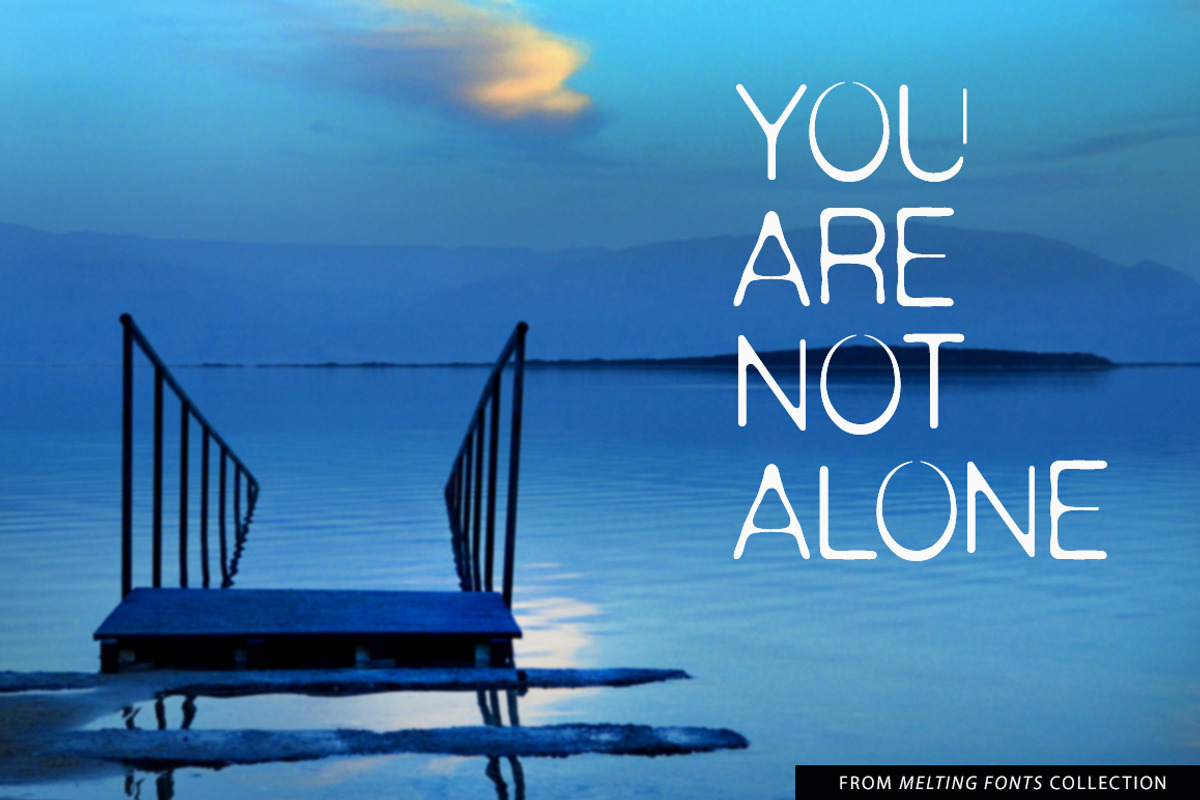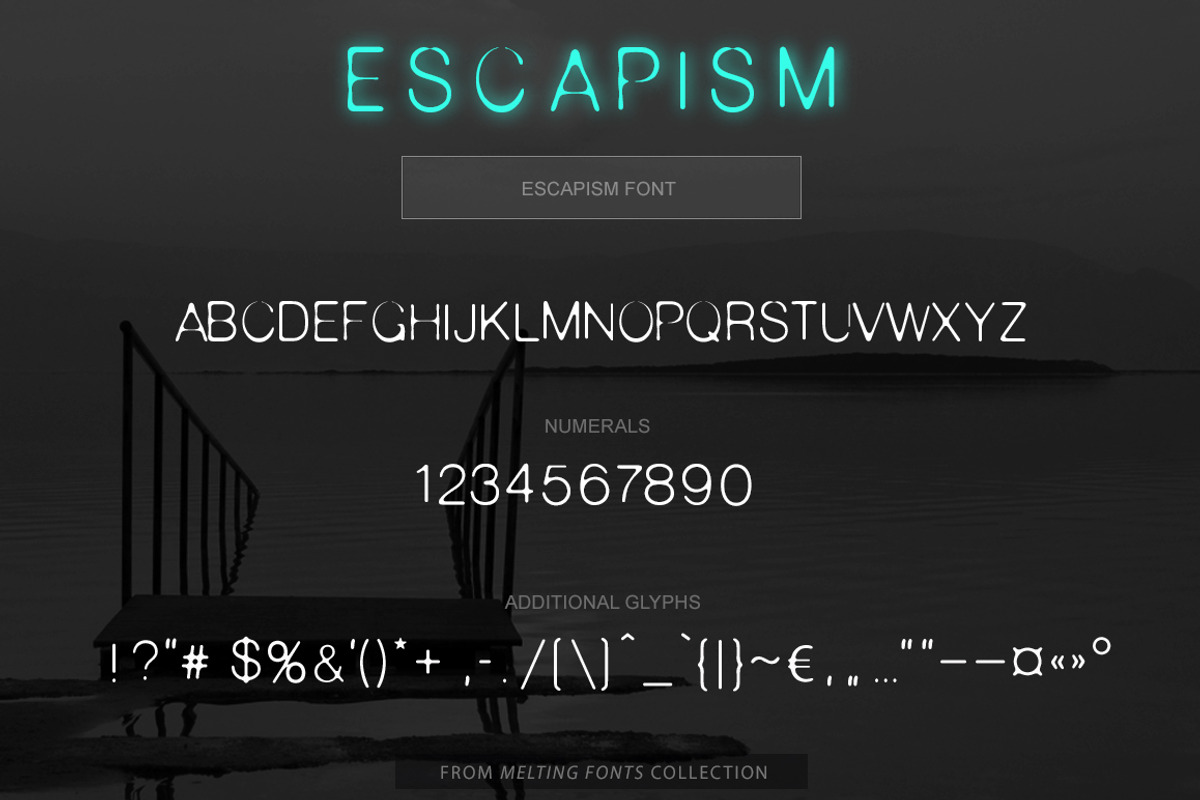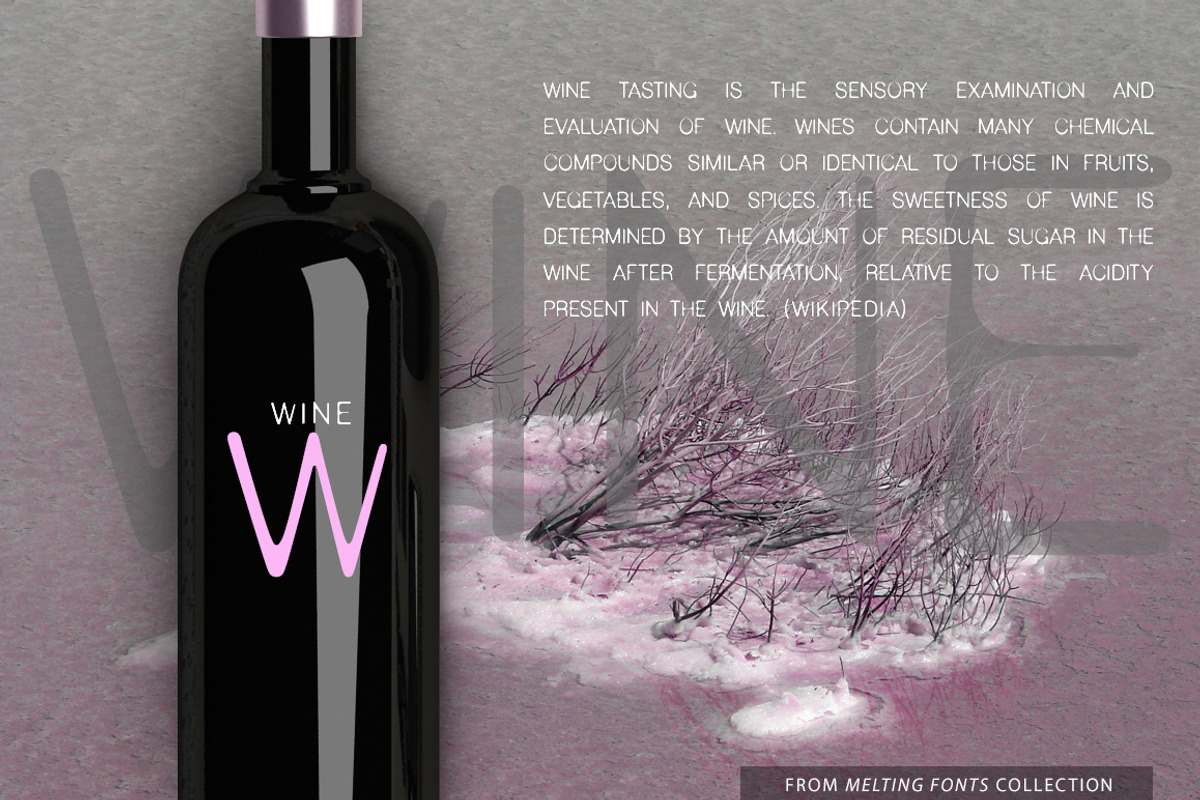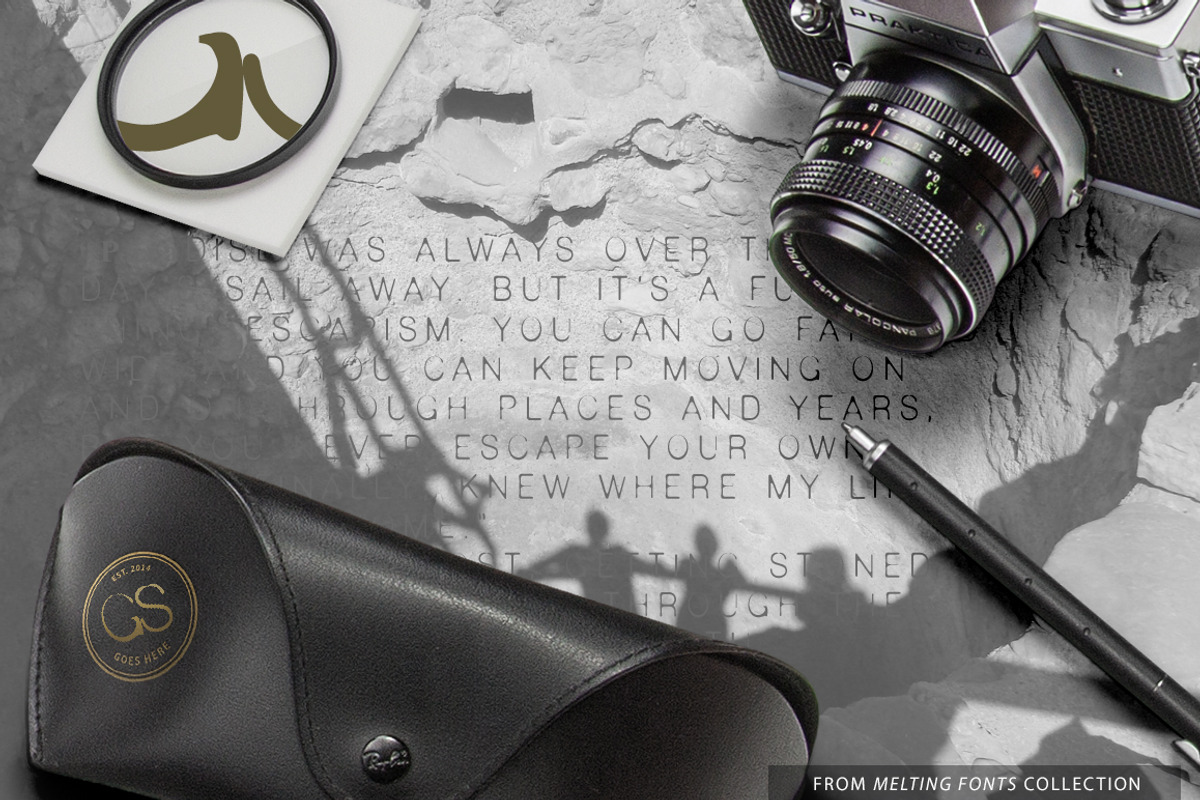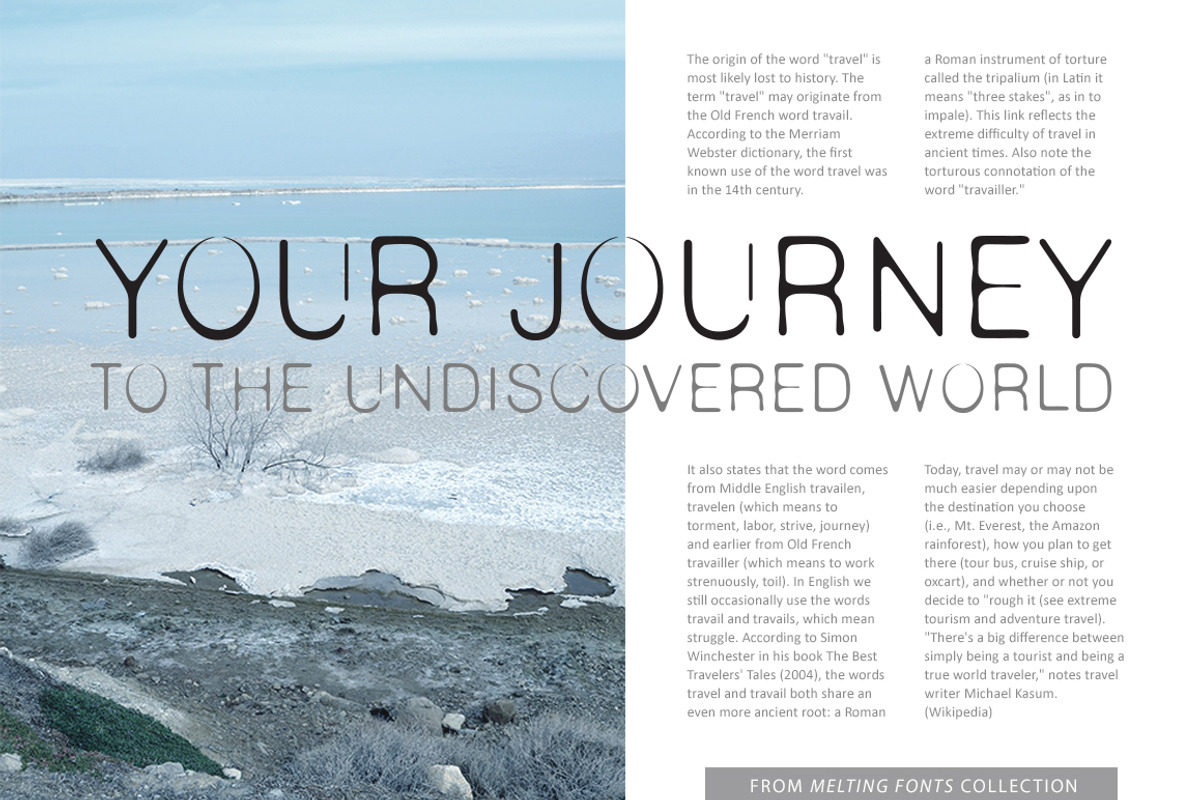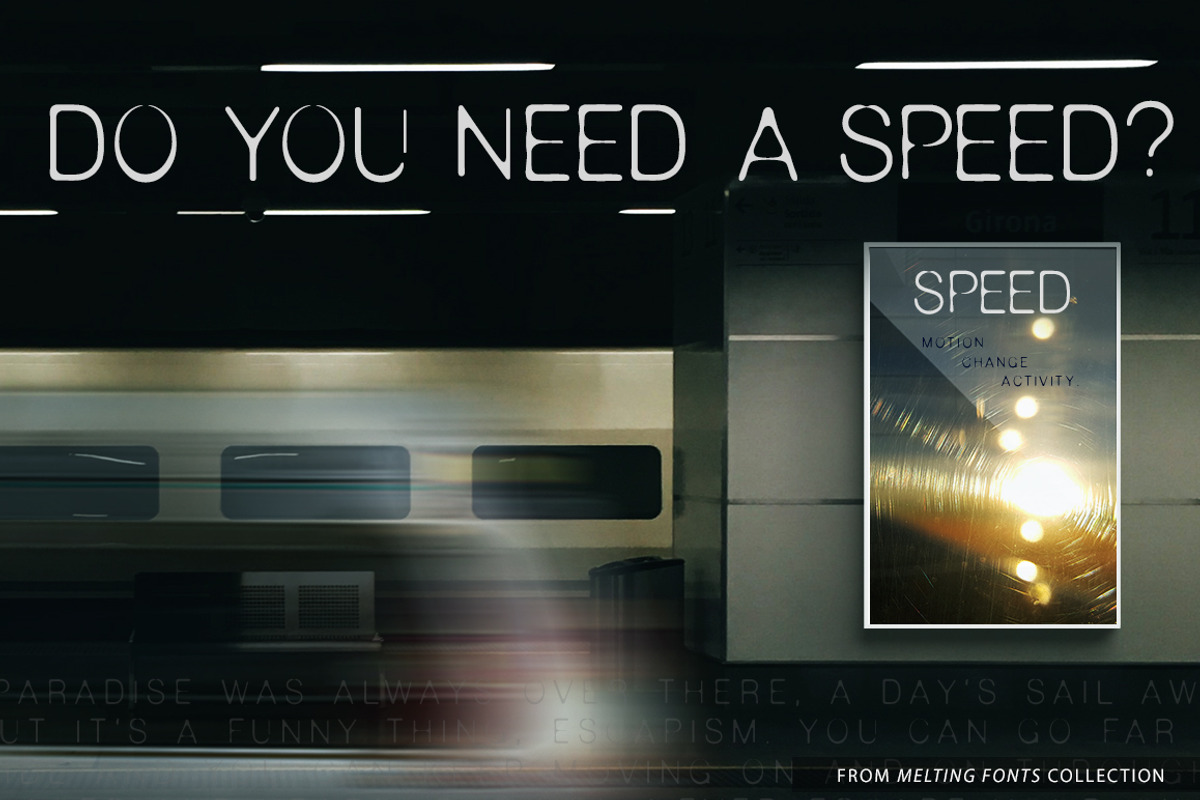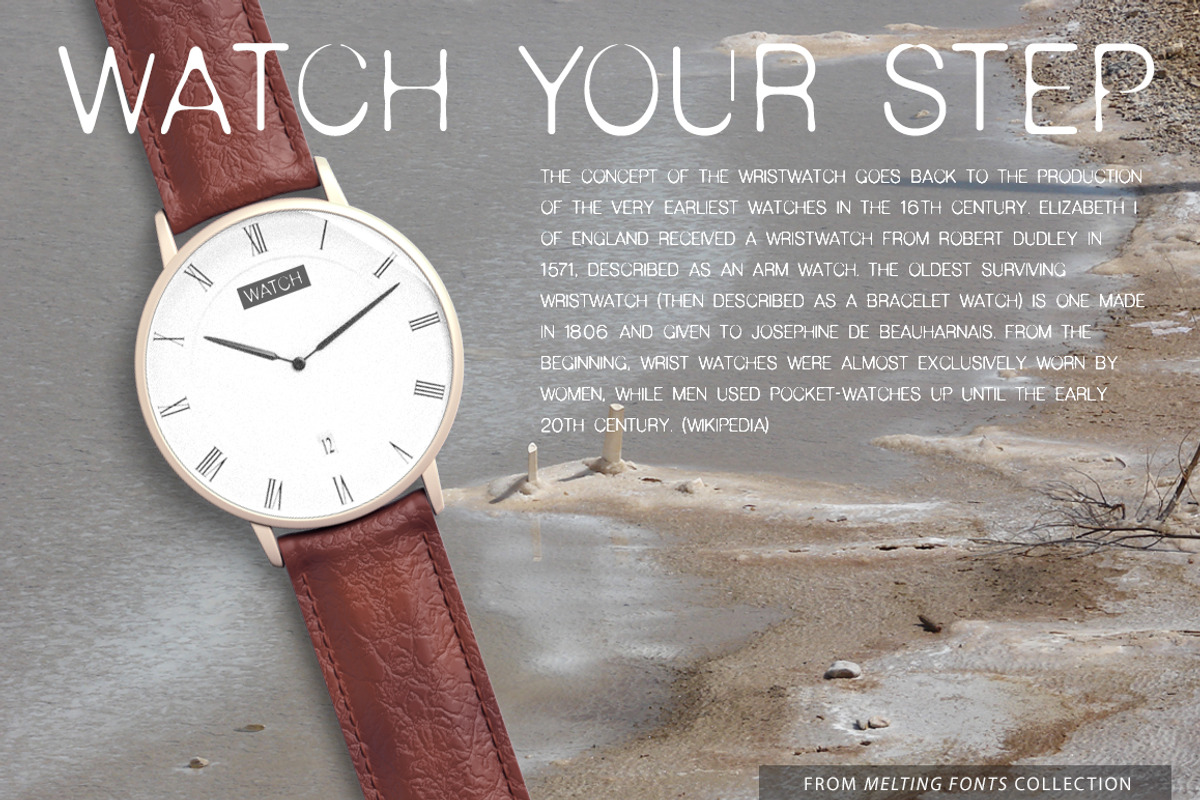
Escapism Sans Serif Font
Escapism Sans Serif Font by GalaStudio is a font selected for branding, posters, packaging, typography.
- Numbers, additional glyphs & basic punctuation are included.
Why Escapism Sans Serif Font is worth a look
Escapism Sans Serif Font by GalaStudio fits naturally into Branding, posters, packaging, typography.